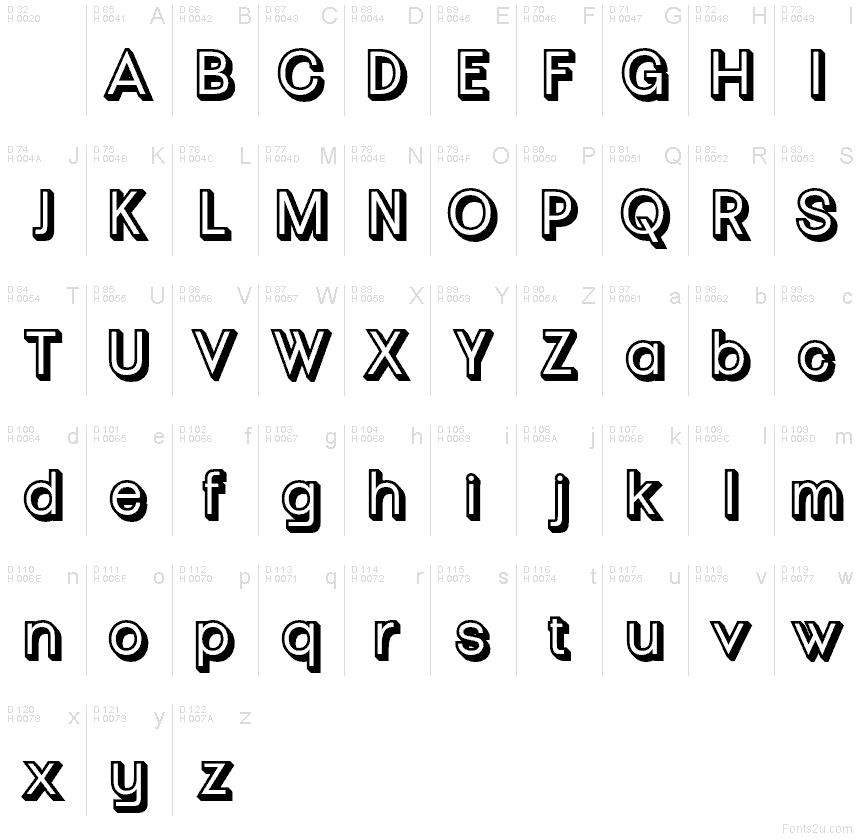
Heily-ExtrudeRight Demo
Heily ExtrudeRight font by Craft Supply Co. is a free techno display font with a sleek, clean, and contemporary style. It presents geometric characters that give off a modern vibe and even connote a high-tech feel. The quality of the letters of this font matches headings that can make or break designs due to their larger size.
The Heily ExtrudeRight 3D sans serif fonts are usually the focal part of texts, which makes them an important choice. Download it for free when working on university posters, apparel items like t-shirts and hoodies, magazine fronts as well as arts-related covers. Use it for minimal menus and gift bags when you want to stand out.